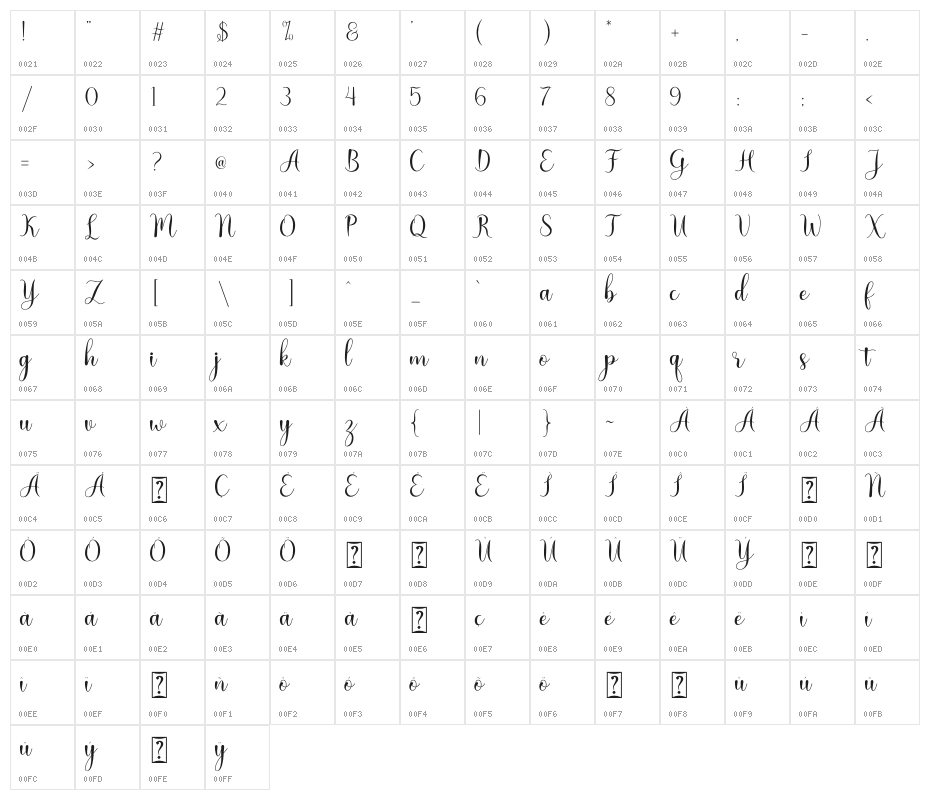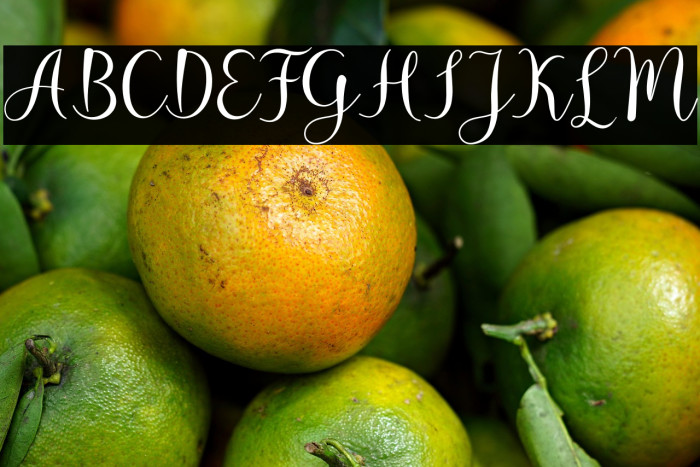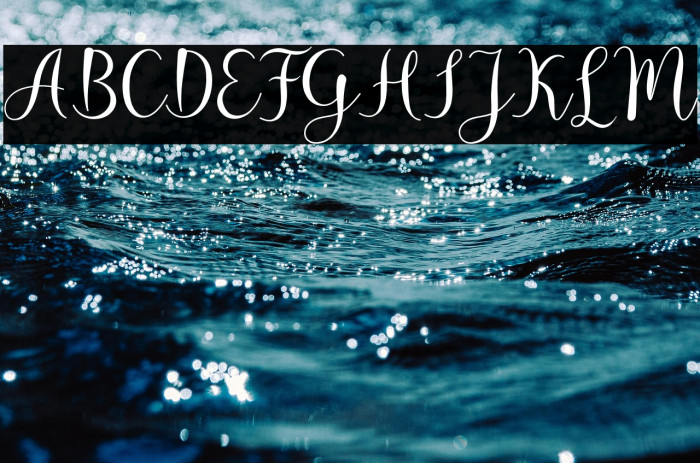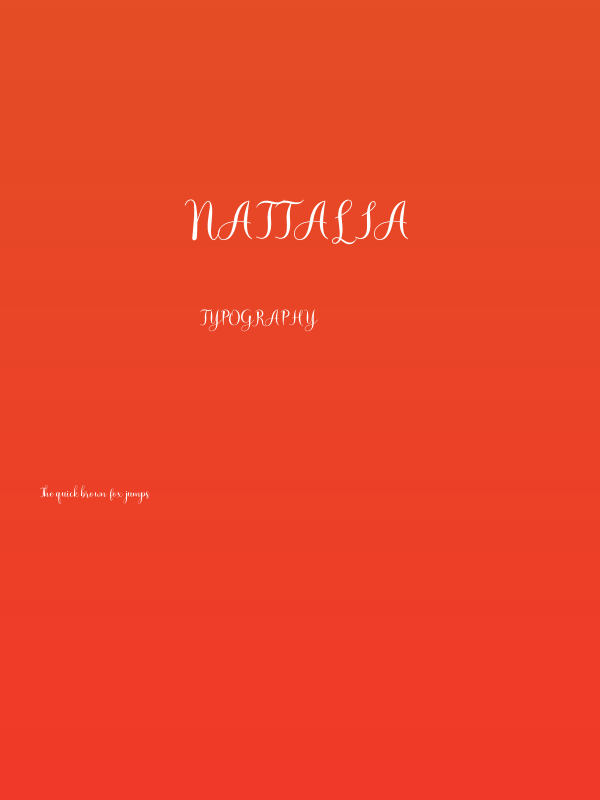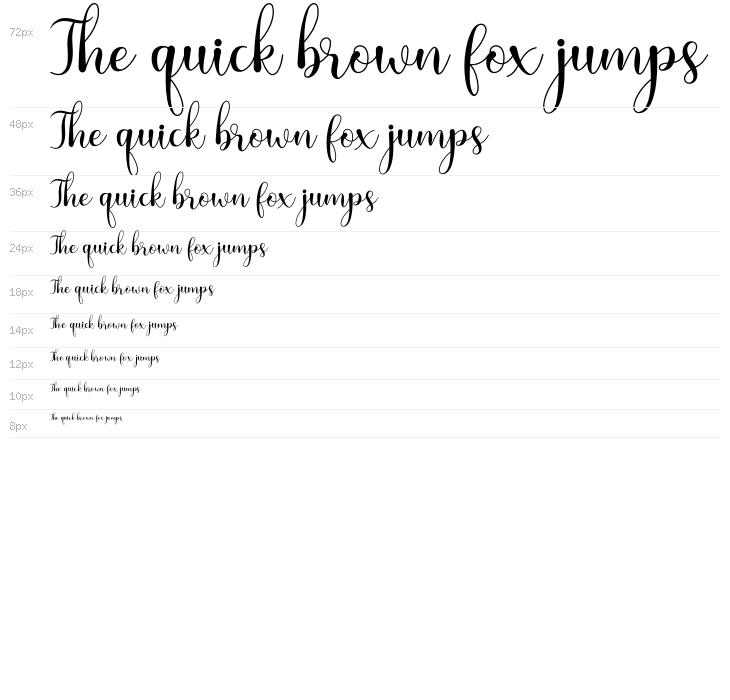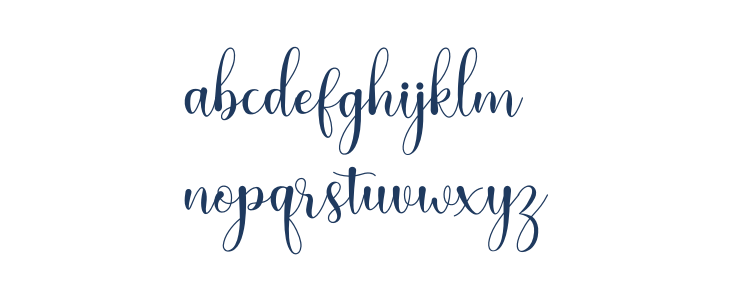
Nattalia Font
Nattalia Description
This elegant script font exudes a sense of sophistication and fluidity, characterized by its flowing, cursive letterforms. The uppercase letters are tall and graceful, with sweeping ascenders and descenders that add a touch of drama. The lowercase letters maintain a consistent rhythm, enhancing readability while retaining an artistic flair. Numbers and special characters are crafted with the same attention to detail, ensuring a cohesive appearance across all text. This font is perfect for projects that require a personal and stylish touch, such as invitations, branding, and decorative elements.